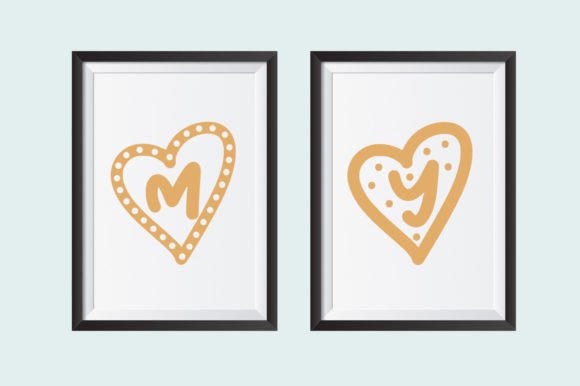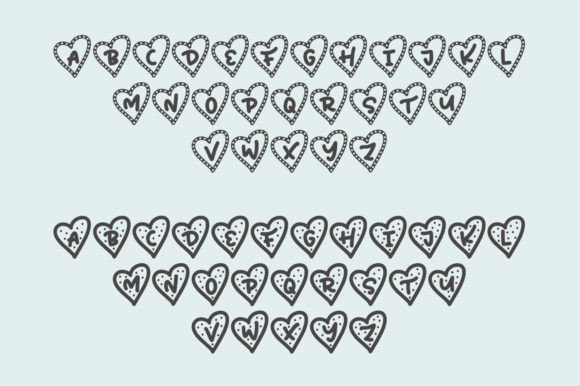
Introduction to Monogram Heart Sign Font Font
Fonts play a crucial role in design, and the Monogram Heart Sign Font font is a typeface that brings both character and versatility to any project. Whether you’re working on a branding project, a website, or a print design, the Monogram Heart Sign Font font offers a unique style that can elevate your work.
Monogram Heart Sign is a beautiful monogram font.
This font will add a feeling of love to any craft idea, be it wedding crafts, invitations, greeting cards, Valentines, logos, and others .
Key Features of Monogram Heart Sign Font Font
Why Choose Monogram Heart Sign Font Font?
The Monogram Heart Sign Font font is more than just a typeface – it’s a design tool that helps you communicate your message with style and clarity. Its unique character set and versatile design make it suitable for a wide range of applications, from elegant invitations to bold headlines.
With its carefully crafted letterforms and balanced proportions, the Monogram Heart Sign Font font ensures readability and visual appeal across all mediums.
What makes Monogram Heart Sign Font font special?
The Monogram Heart Sign Font font stands out with its unique design, exceptional readability, and versatility across various design applications.